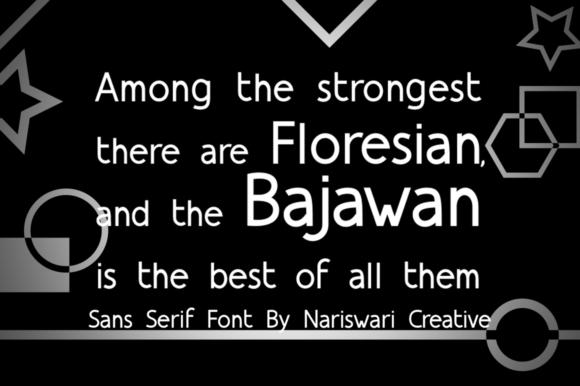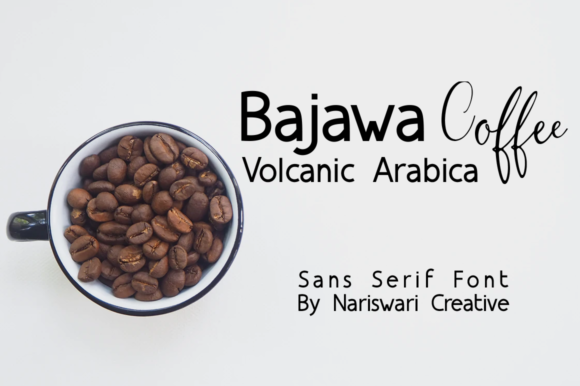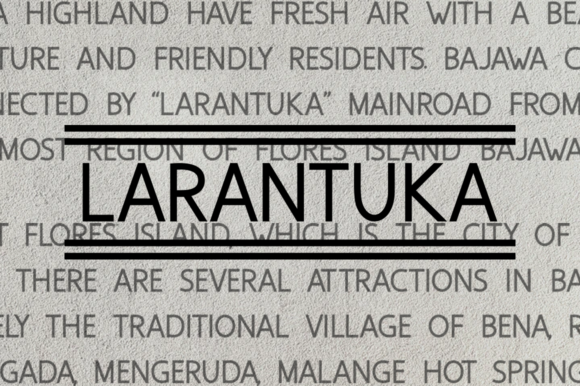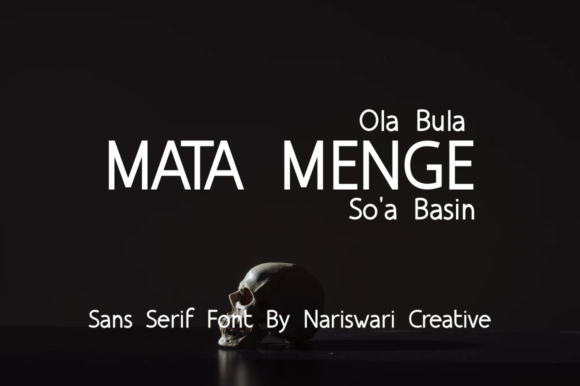
Discover the Hidden Gem of Your Next Design Project
Remember that moment when you stumbled upon the perfect font for your project, and it instantly elevated your entire design? It’s like finding a missing puzzle piece that makes everything fall into place. For designers, finding the right font can be a game-changer, and today we’re excited to introduce you to a hidden gem that’s sure to become your new favorite – the Bajawa Font.
Bajawa Font is a sleek and modern sans-serif typeface that exudes minimalism and sophistication. Its clean lines and precise shapes make it an ideal choice for a wide range of projects, from branding and marketing materials to digital products and publications. Whether you’re looking to create a bold statement or a subtle background texture, the Bajawa Font is sure to deliver.
Bajawa Font Key Features
- Font Family: Bajawa is a sans-serif font family, specifically designed for use in digital media.
- Font Size: Bajawa comes in multiple weights, ranging from Light to Bold, with font sizes from 10 to 72 points.
- Unique Characteristics: Bajawa features a unique blend of modern and traditional design elements, making it suitable for a wide range of applications, from digital signage to editorial content.
- Language Support: Bajawa supports a wide range of languages, including Latin, Cyrillic, Greek, and Devanagari scripts.
Bajawa Font Review
I recently had the chance to work with the Bajawa font, and I must say it’s an interesting choice. Here’s my honest review.
- Unique aesthetic: Bajawa font has a distinct, exotic feel that can add a touch of elegance to any design.
- Good for title work: The font is quite legible when used for titles and headings, making it suitable for a variety of applications.
- Compact design: The font’s compact design makes it a great choice for digital displays and mobile devices where screen real estate is limited.
- Limited legibility at smaller sizes: While the font is legible at larger sizes, it can become difficult to read at smaller sizes, which may limit its use in body text.
- Lack of versatility: The font’s unique aesthetic may not be suitable for all designs, and its limited range of weights and styles may limit its use in complex projects.
Overall, I think the Bajawa font is a great choice for designers who want to add a touch of elegance and sophistication to their work. However, it’s not a one-size-fits-all solution, and designers should be aware of its limitations before using it in their projects.
Tip: Use Bajawa Font for headings and titles to add a touch of elegance and sophistication to your design.
Tip: Use Bajawa Font in combination with bold lines and shapes to create a striking visual effect.
Tip: Use Bajawa Font for headings and titles to add a touch of sophistication and professionalism to your presentation or document.
Bajawa Font is ideal for:
- Designing luxury brands and products.
- Creating elegant and sophisticated graphics.
- Adding a touch of sophistication to presentations and documents.
Remember to use Bajawa Font in moderation to avoid overwhelming your design.
Alternatives to Bajawa Font
Playfair Display is an elegant, high-end serif font that exudes luxury and sophistication. It is ideal for use in branding, advertising, and editorial design where a touch of class is required. In comparison to Bajawa Font, Playfair Display has a more refined and ornate feel, making it suitable for high-end fashion, jewelry, or luxury goods.
Pacifico is a modern script font that conveys a sense of relaxation and freedom. It is perfect for use in travel, wellness, and lifestyle branding, as well as in packaging and signage design. Unlike Bajawa Font, Pacifico has a more casual and laid-back feel, making it ideal for brands that want to evoke a sense of adventure and exploration.
Great Vibes is a beautiful, elegant script font that is reminiscent of classic calligraphy. It is suitable for use in branding, packaging, and editorial design where a touch of whimsy and romance is required. Compared to Bajawa Font, Great Vibes has a more delicate and refined feel, making it perfect for brands that want to convey a sense of elegance and sophistication.